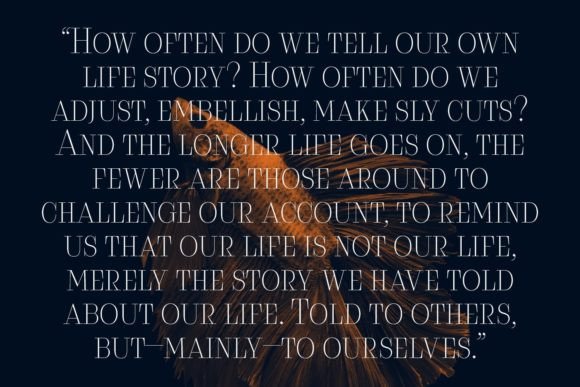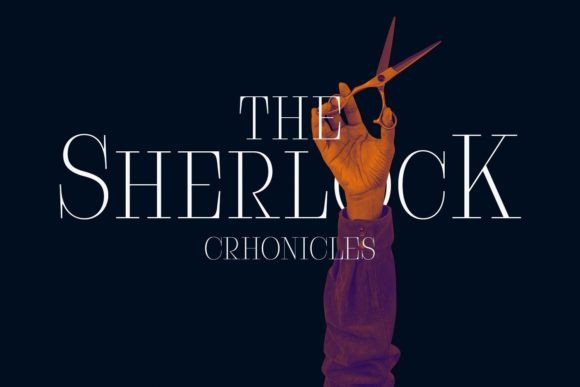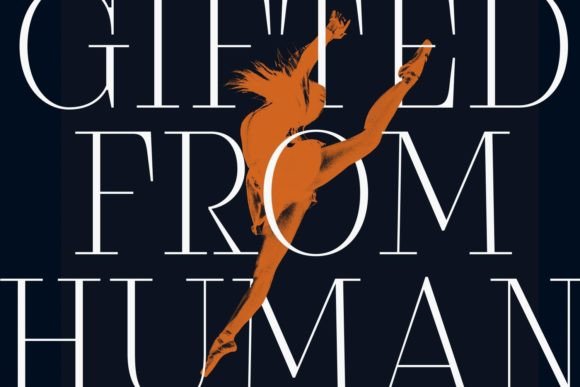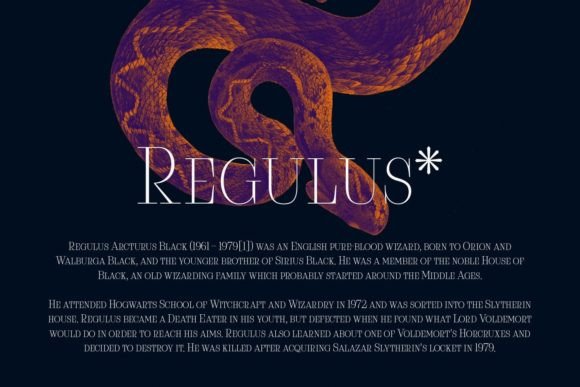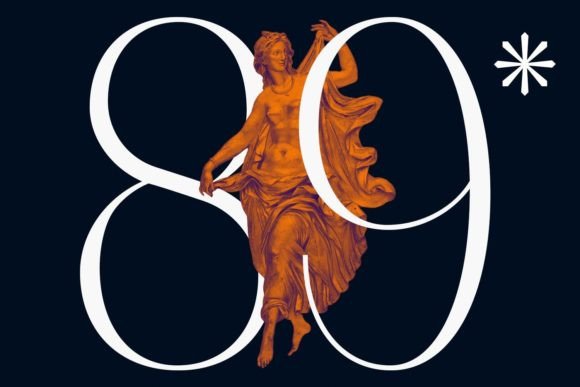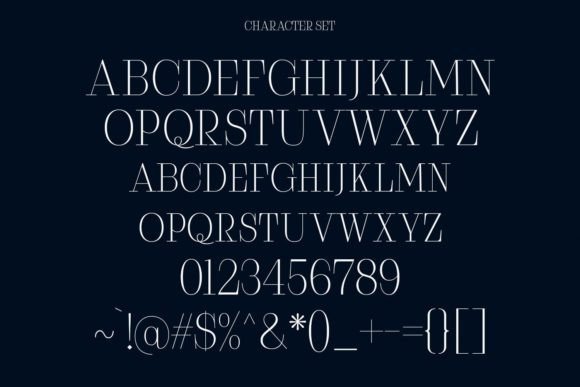
Introduction to Krower Font
Krower is a unique and interesting serif display font.
Incredibly versatile, this font fits a wide pool of designs, elevating them to the highest levels Add this font to your favorite creative ideas and notice how it makes them come alive.
Key Features of Krower Font
Why Choose Krower Font?
Krower Font offers exceptional quality and versatility, making it a valuable addition to your design toolkit. Whether you’re creating for personal projects or commercial use, Krower Font delivers professional results.